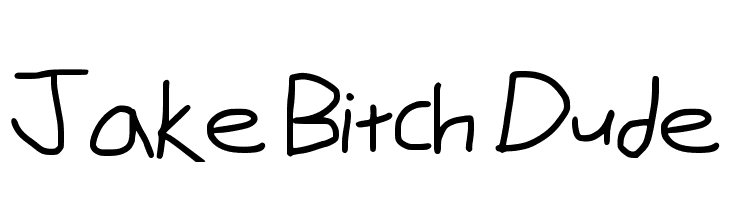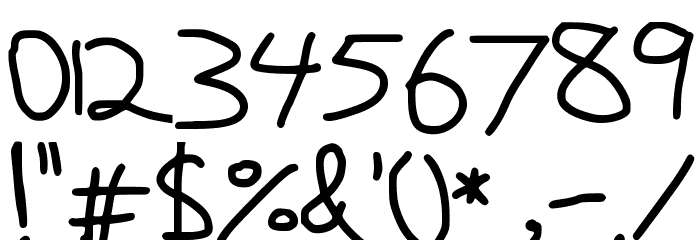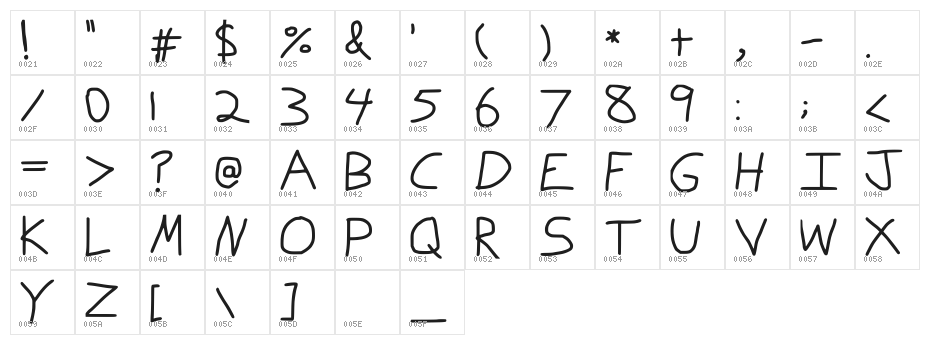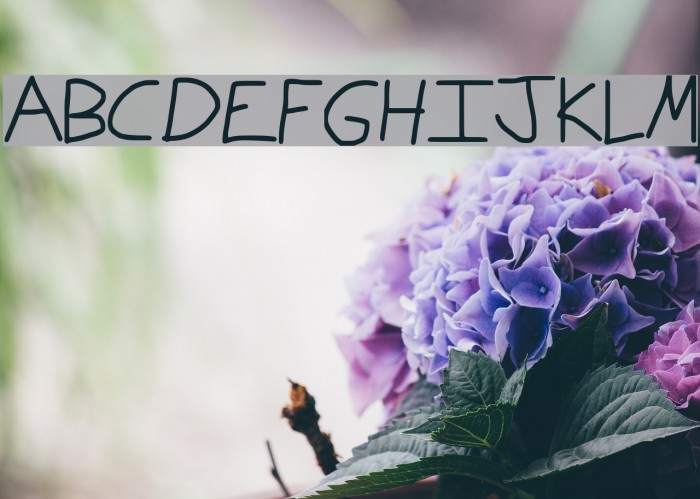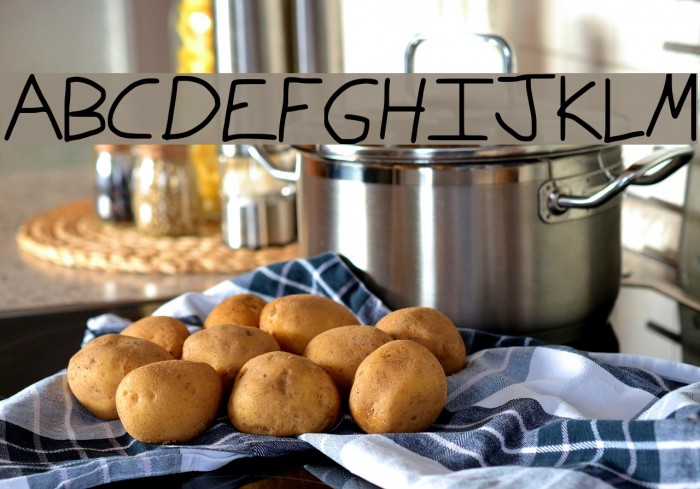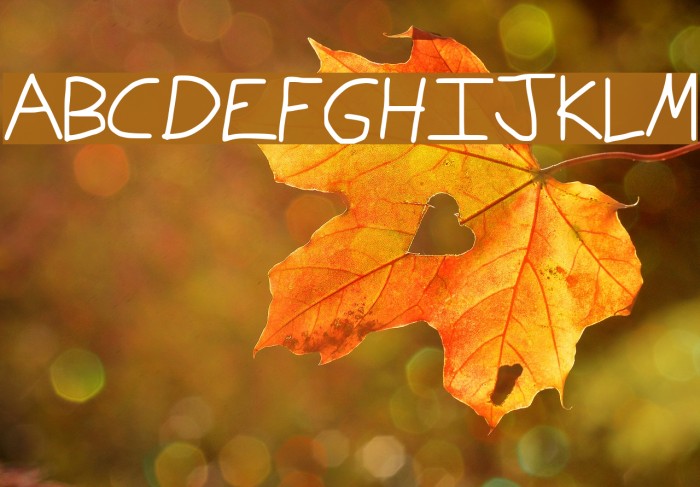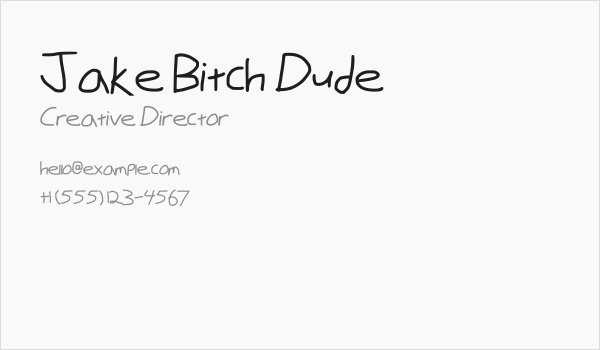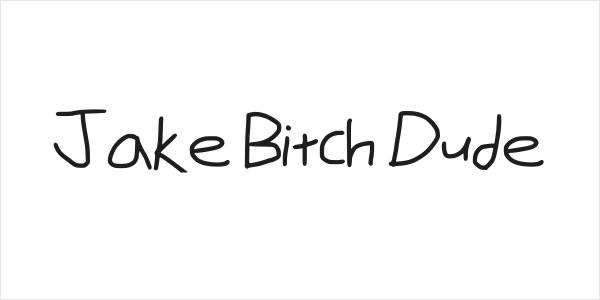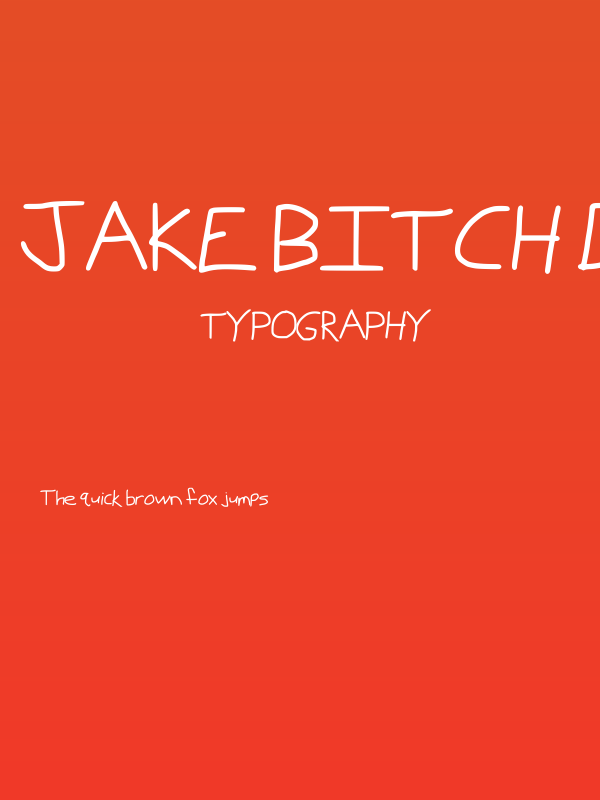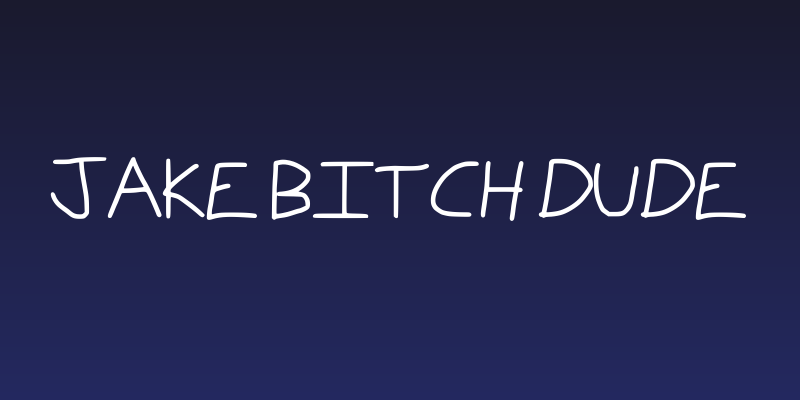
Jake Bitch Dude Font
Jake Bitch Dude Description
This font exudes a playful and casual vibe with its handwritten style. The letters are slightly irregular, giving it a personal and informal touch. The uppercase and lowercase characters maintain a consistent flow, while the numbers and special characters complement the overall design. The strokes are smooth and rounded, adding to the approachable and friendly appearance of the font. It's perfect for projects that require a human touch, such as personal invitations, greeting cards, or playful branding materials.
| Use Case | Logos, Informal communication, Personal projects |
| Proposed Projects | Ideal for greeting cards, personal invitations, playful branding, and informal communication. |